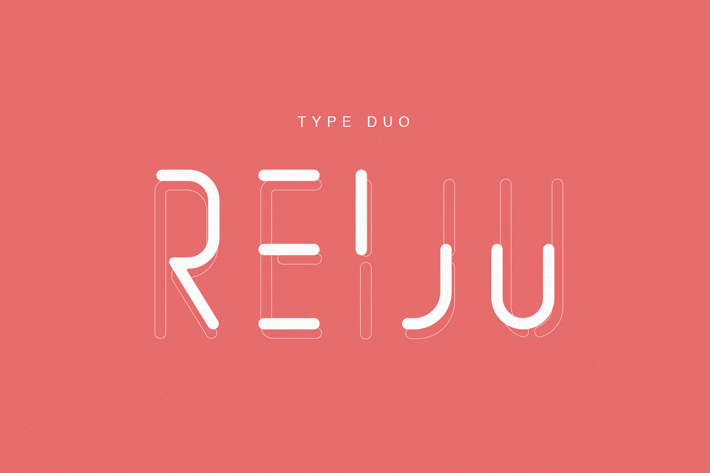
Reiju
Introducing Reiju Font Duo - a clean, feminine, and modern sans serif typeface. Perfect for many different projects: quotes, blog header, poster, wedding, branding, logo, fashion, apparel, letter, invitation, stationery, etc.